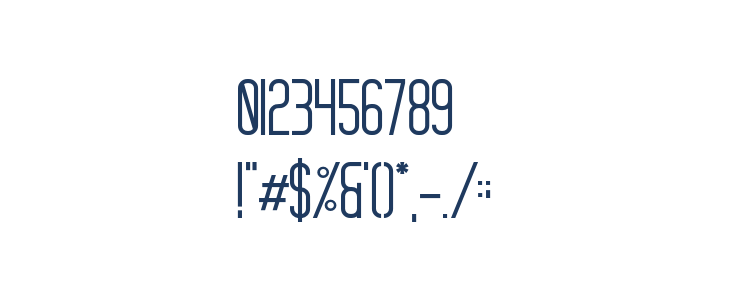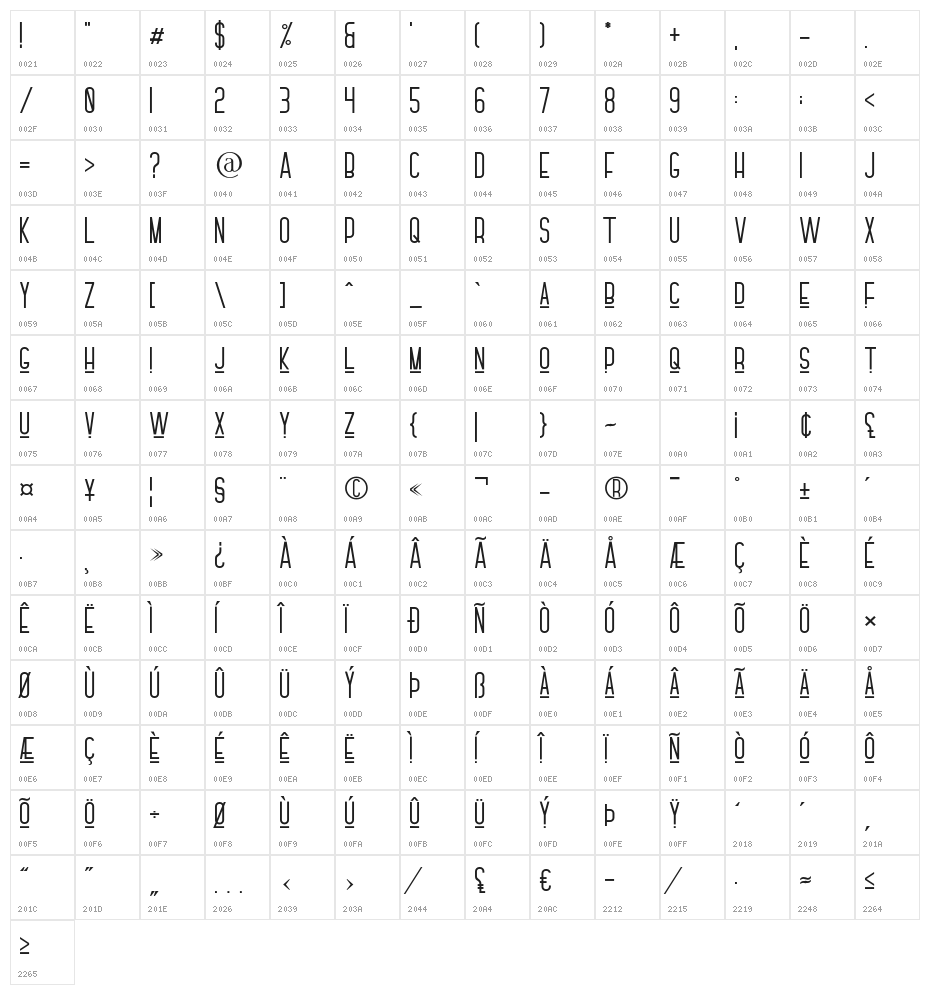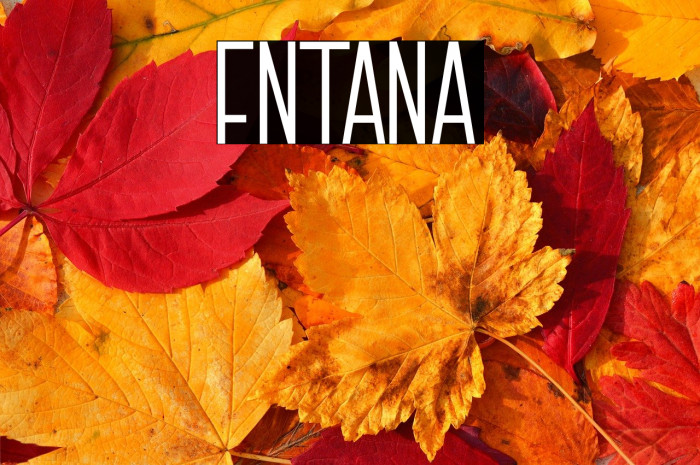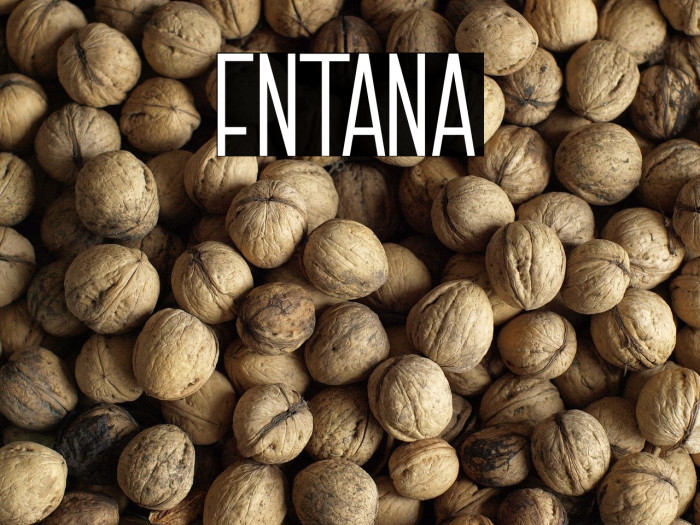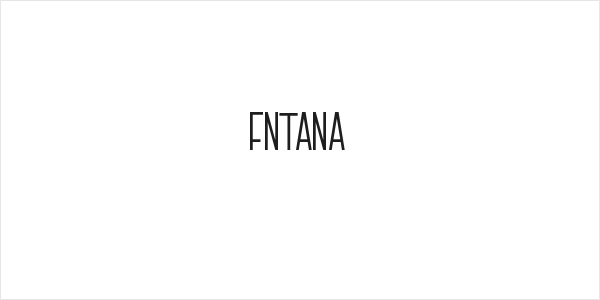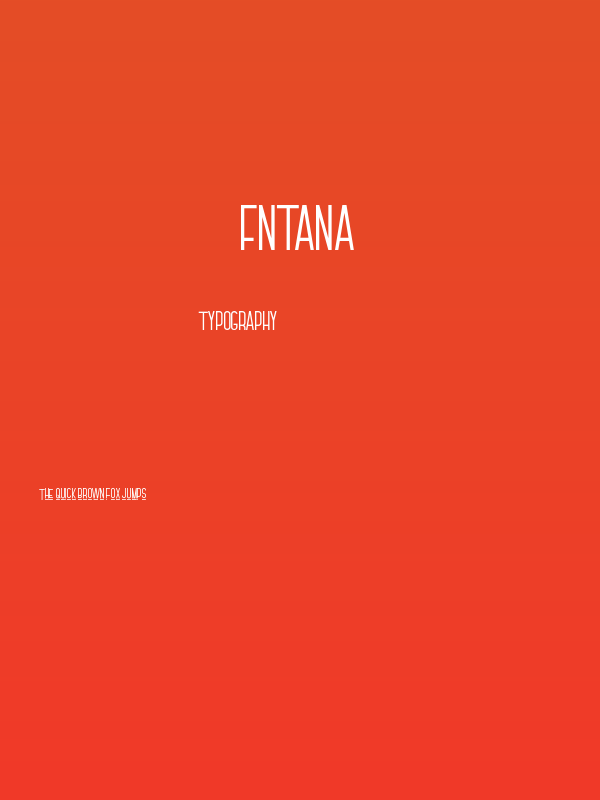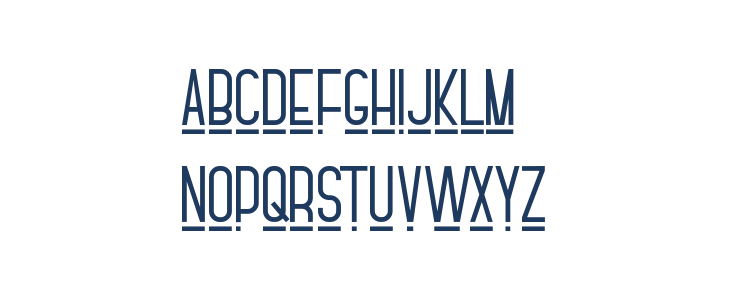
FNTANA Font
FNTANA Description
This font features a modern, geometric design with clean, straight lines and a uniform stroke width. The characters are tall and narrow, giving a condensed appearance. The uppercase letters are particularly striking, with a consistent height and minimal embellishments, creating a sleek and contemporary look. The numerals and special characters maintain the same geometric style, ensuring a cohesive appearance across all elements. This font's simplicity and clarity make it highly legible, even at smaller sizes.
| Proposed Projects | Ideal for branding, advertising, and editorial design projects where a modern and clean aesthetic is desired. |